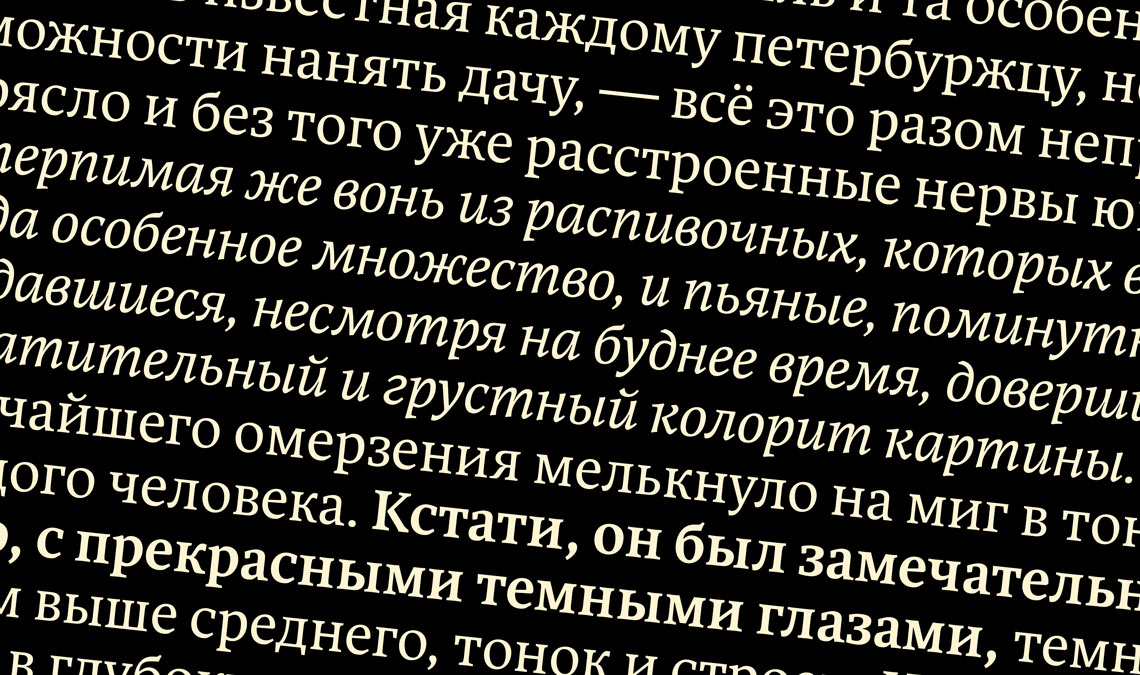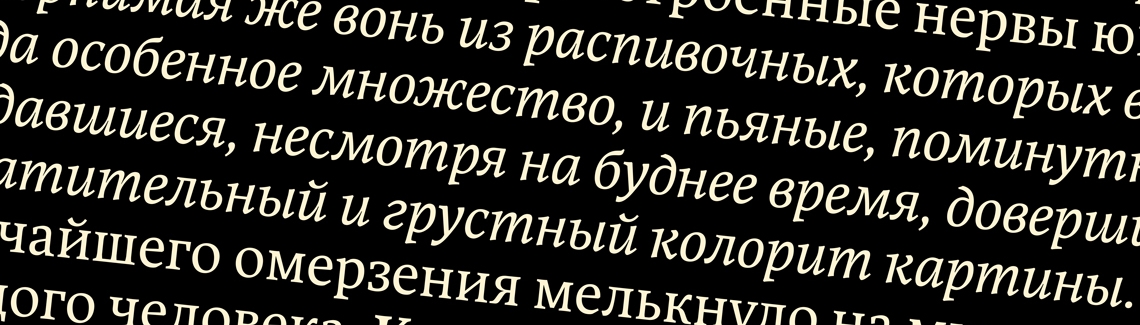
On some occasion, it happens that a typeface is commissioned by a client to be extended by styles or additional scripts. TypeTogether was therefore pleased to receive a request to develop Cyrillic for three styles of the successful Karmina type family, for both print and web use.
calligraphic roots translate into the cyrillic script
Karmina's calligraphic roots also influenced the design of the Cyrillic part, most notably in out-strokes reminiscent of a broad-nip pen, e.g. on letters such as ж (zhe) and л (el). As is also common in multi-script typefaces, the most representative features of the design were maintained for consistency; low contrast, narrow proportions, chunky serifs, acute connections and the large and yet graceful ink traps.
Due to the caps-like structure of the Cyrillic lowercase it is advisable, in some typefaces, to increase the x-height of the Cyrillic. To achieve coherently good results when both Latin and Cyrillic are set on the same line of text, it was decided to do so with Karmina Cyrillic. The result of all these characteristics grants Karmina Cyrillic outstanding legibility and economy.
Russian type designer Alexandra Korolkova gave valuable feedback and suggestions in tune with current typographic trends on the Cyrillic lettershapes.